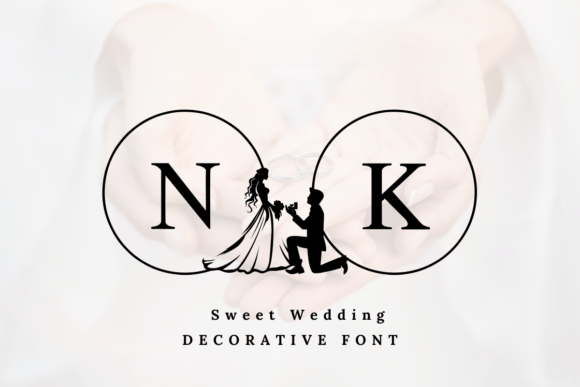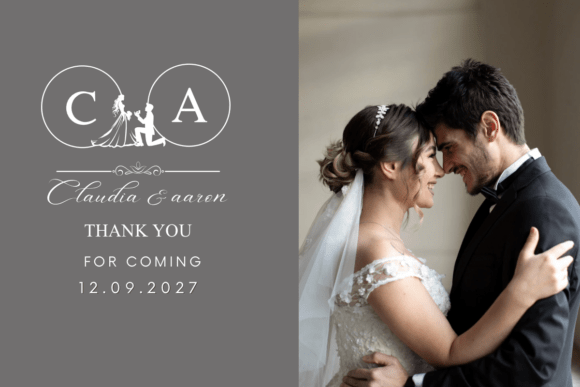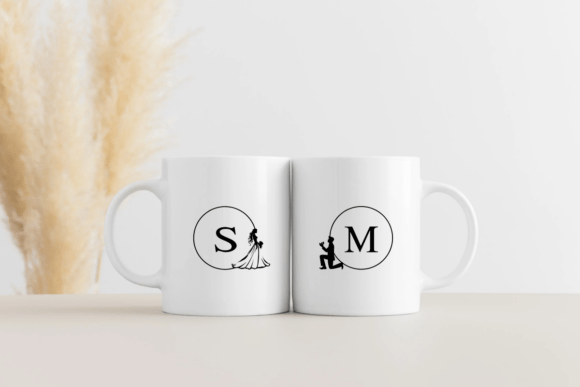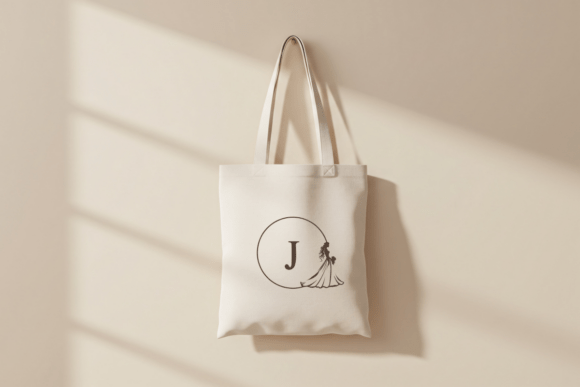
Sweet Wedding Font
Sweet Wedding is a charming decorative serif font designed for romantic and elegant occasions. Featuring classic serif characters blended with unique wedding-themed elements like rings and silhouettes, it’s ideal for wedding invitations, save-the-date cards, engagement designs, and love-themed branding.